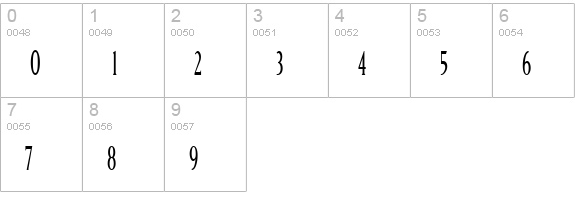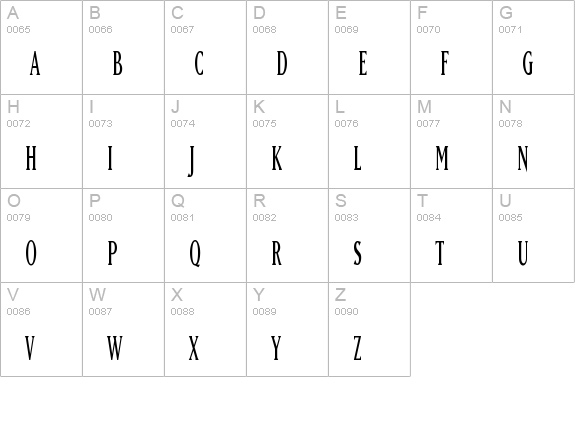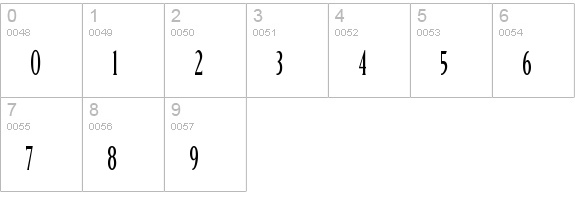
MatrixNarrowLining Regular Font Details
MatrixNarrowLining Regular is the standard, neutral variant in the MatrixNarrowLining typeface family \xE2\x80\x94 well suited to general body text, paragraphs, and standard typographic work.
MatrixNarrowLining Regular font is a sleek and modern typeface designed for a wide range of design projects. With its clean lines and narrow spacing, this font exudes a sense of sophistication and professionalism. The geometric shapes and subtle curves of MatrixNarrowLining Regular make it a versatile choice for both print and digital applications. This font is meticulously crafted to ensure legibility and readability, making it ideal for body text as well as headlines and titles. Whether you are working on a website, brochure, poster, or any other design project, MatrixNarrowLining Regular font will bring a touch of elegance and style to your work. Best of all, MatrixNarrowLining Regular font is available for free download at FontsMarket.com. So go ahead and enhance your designs with this beautiful and versatile typeface today!